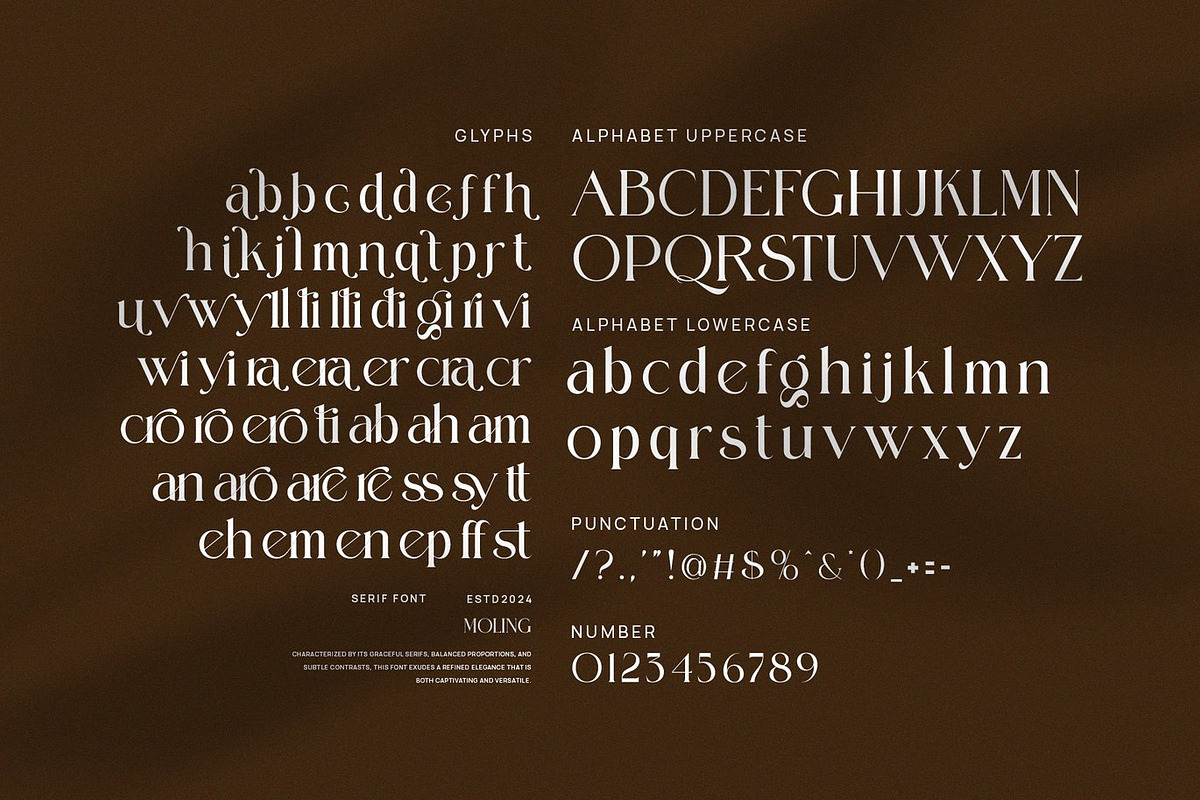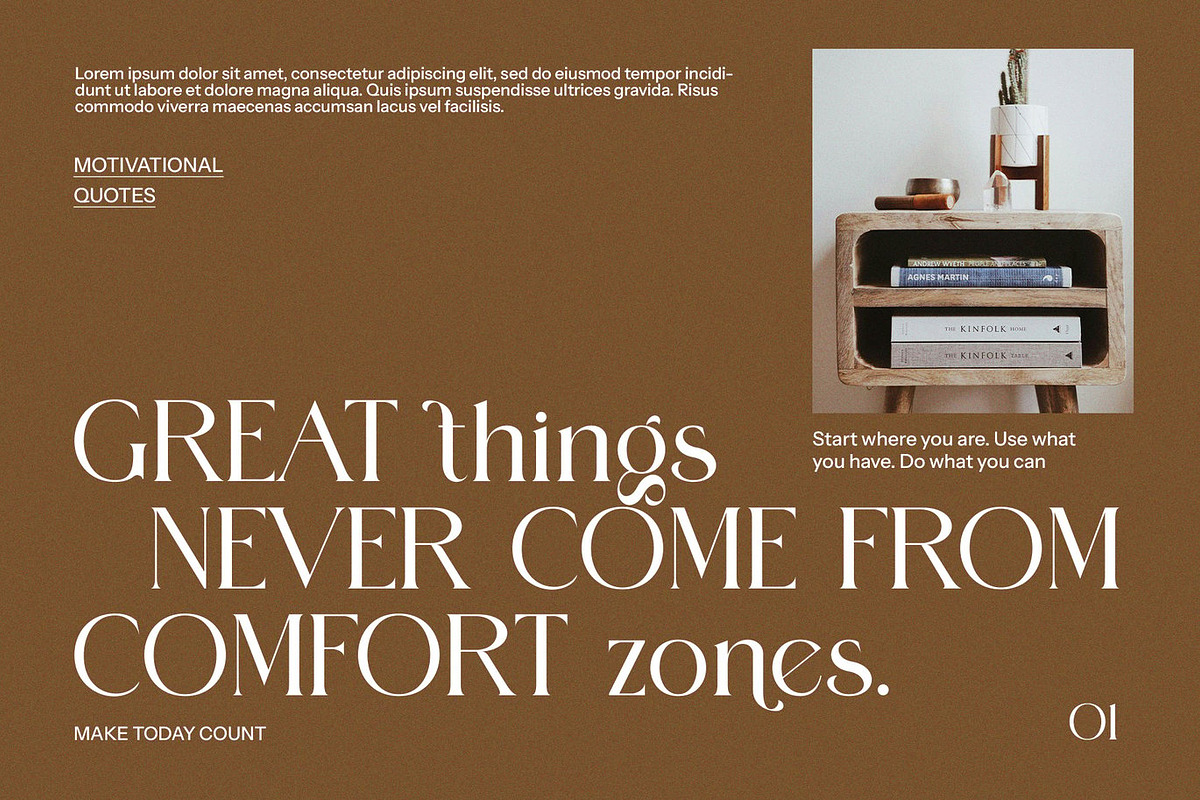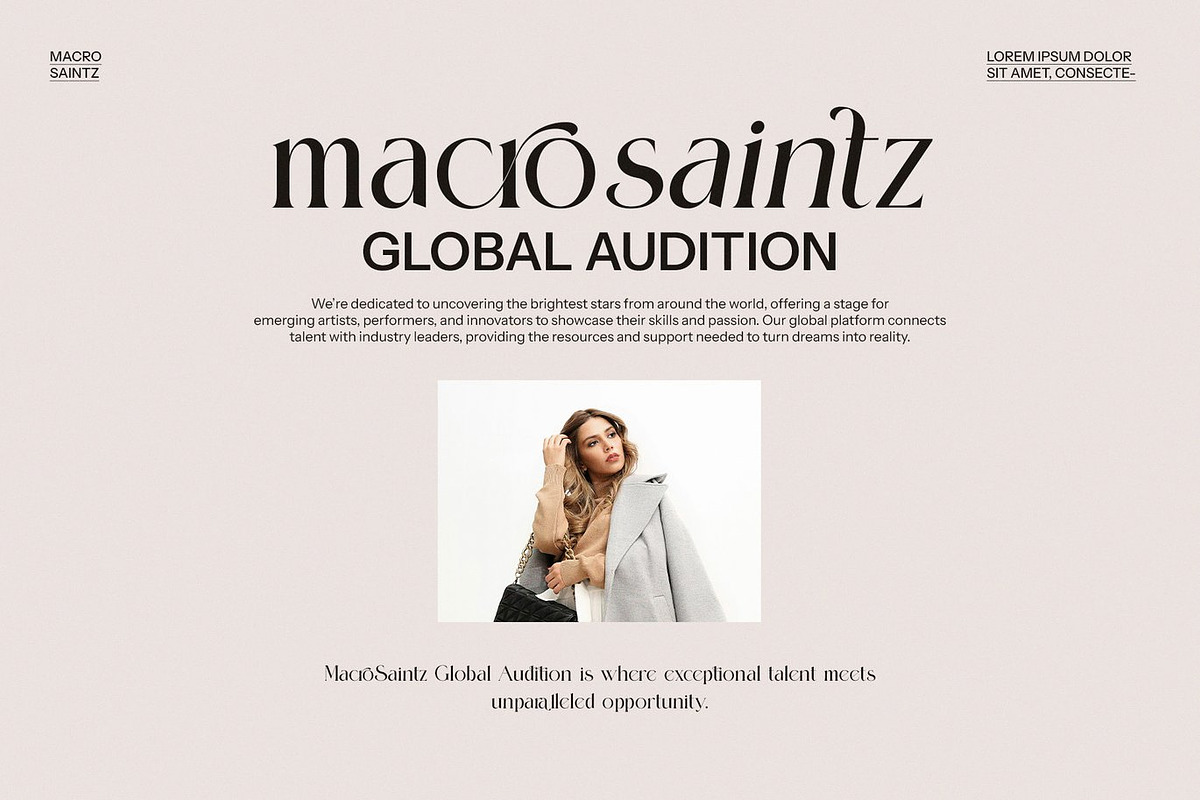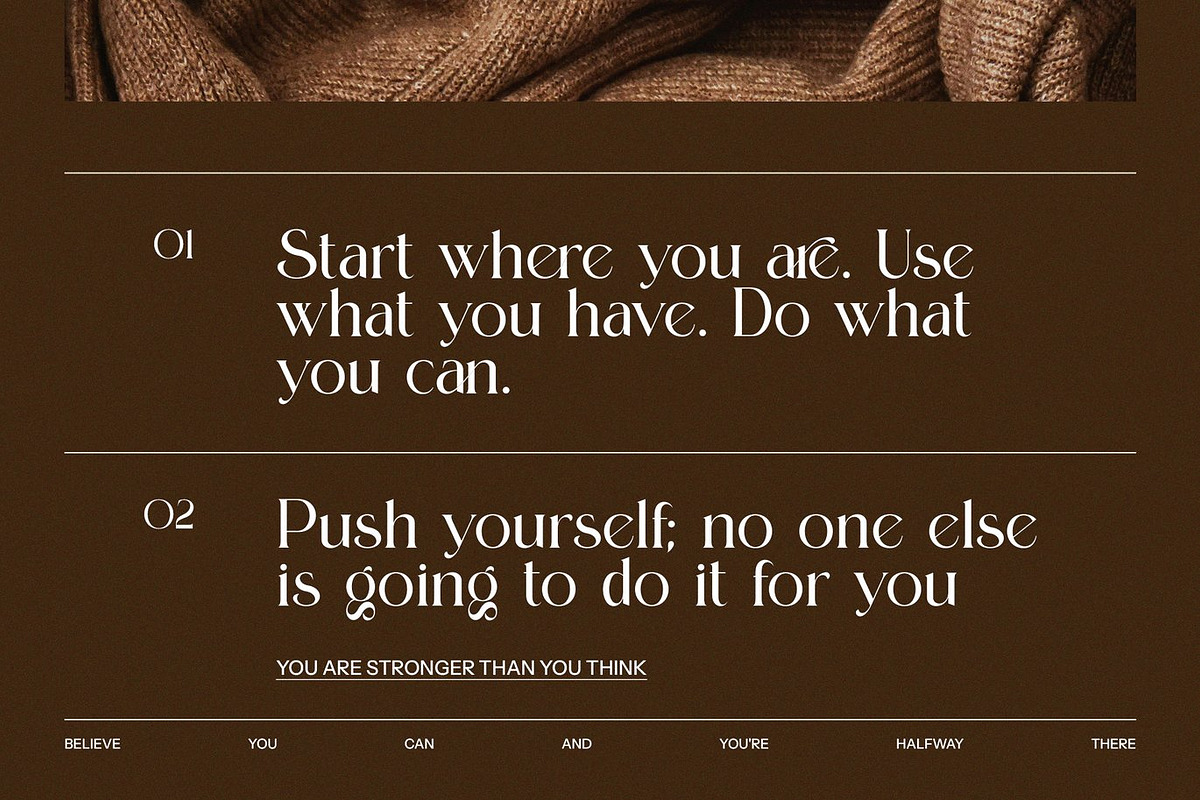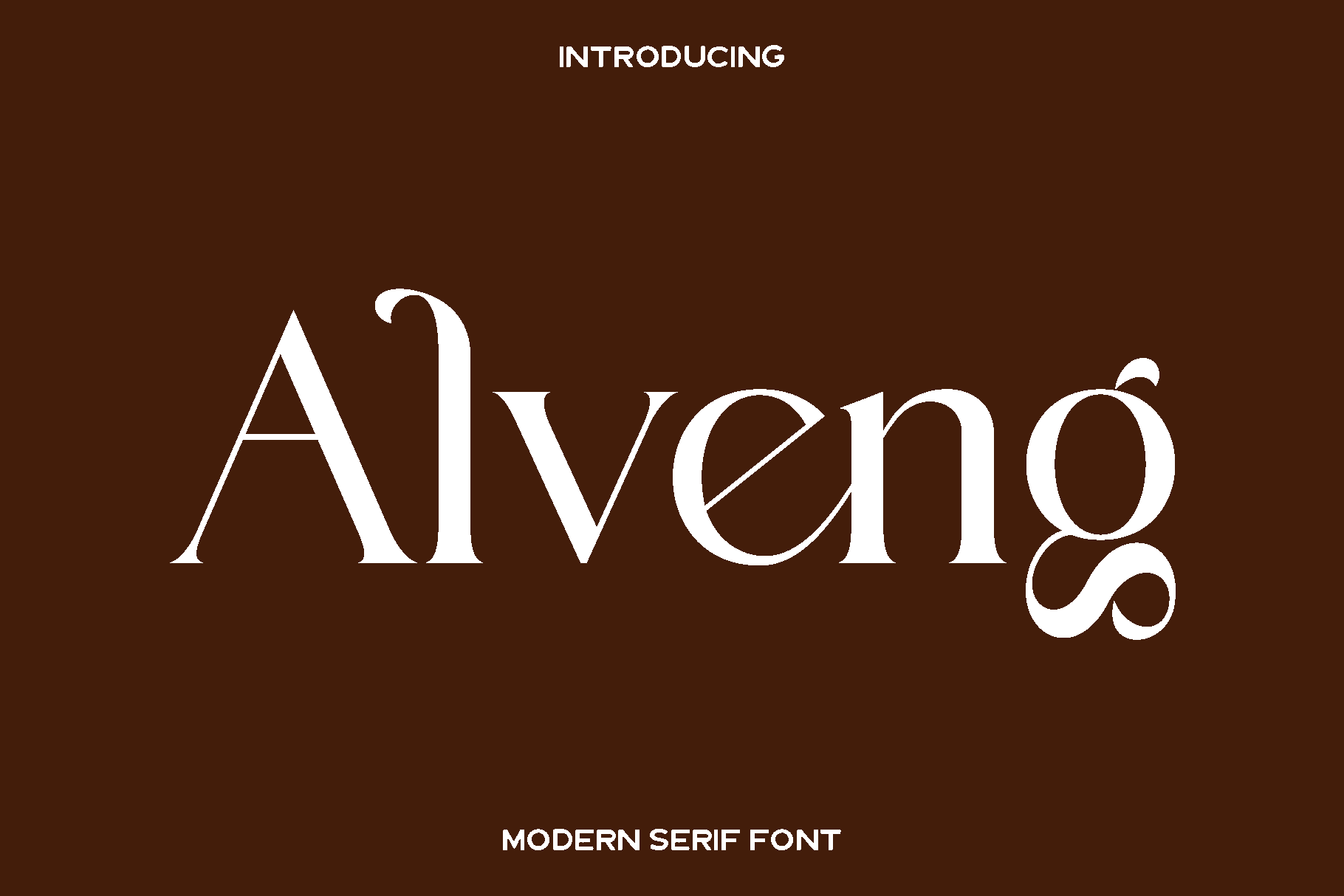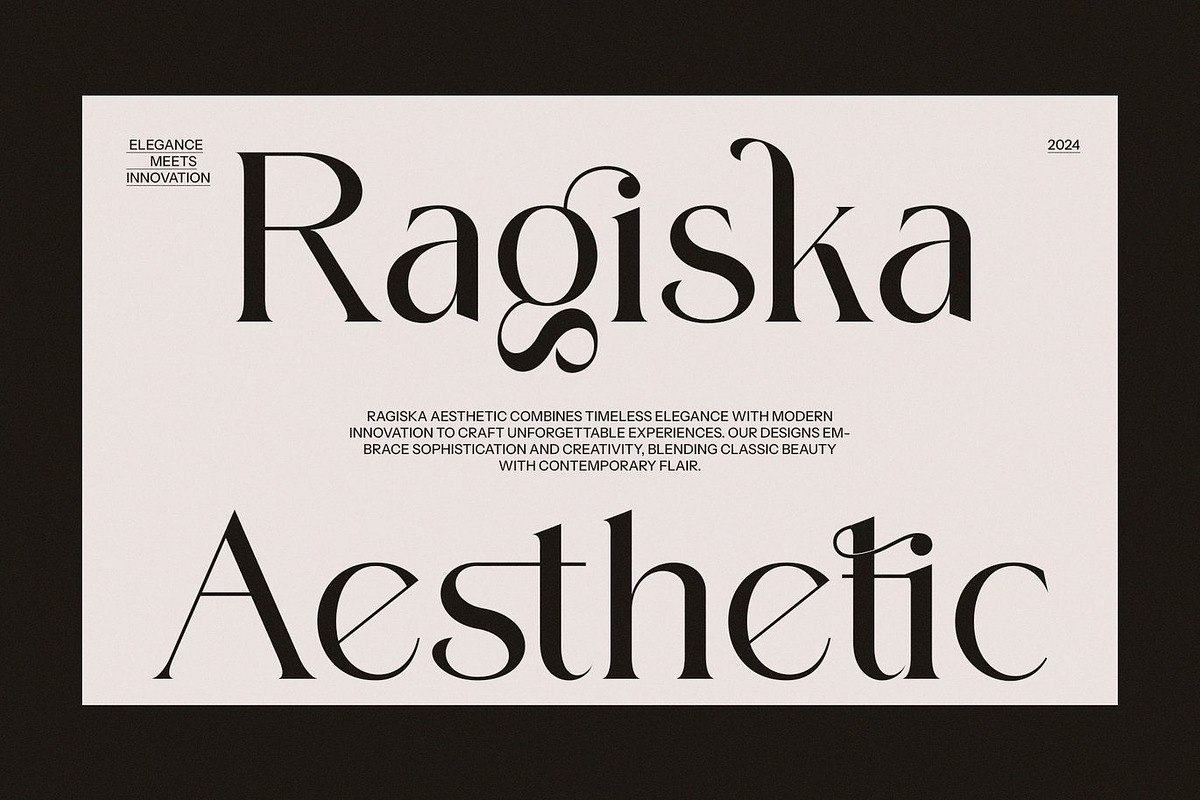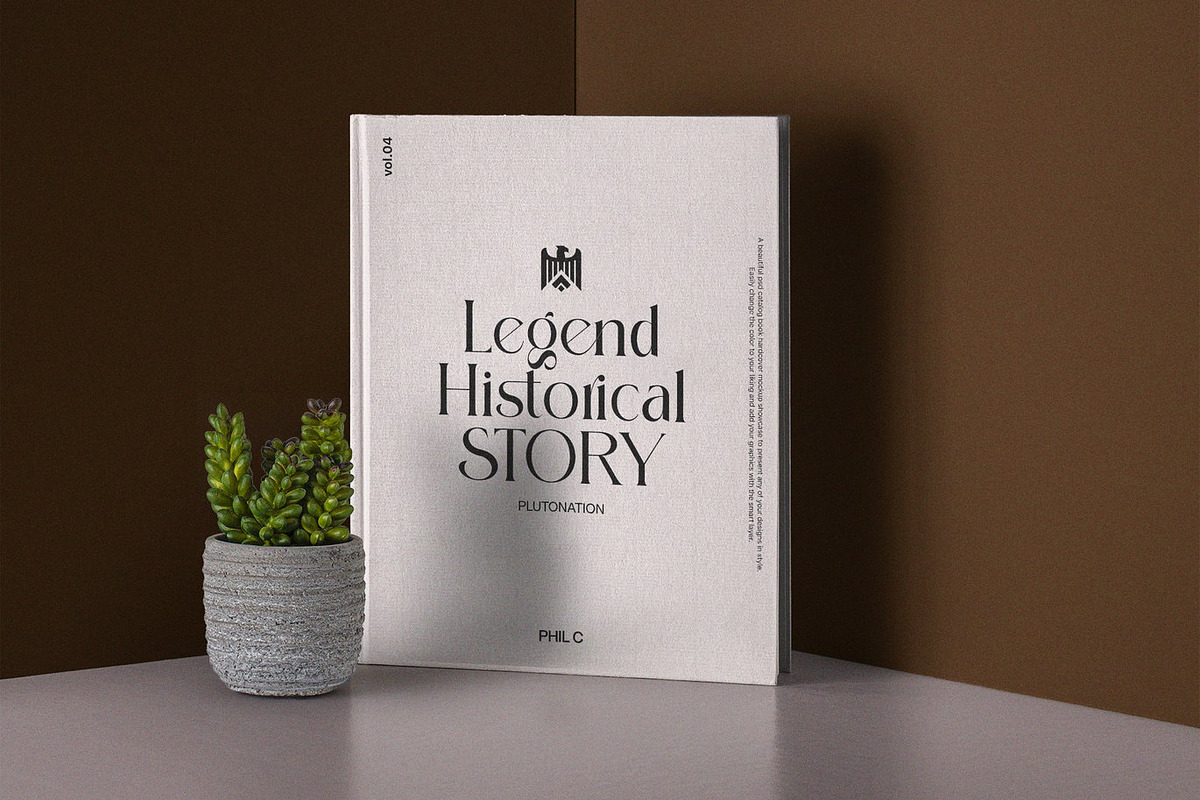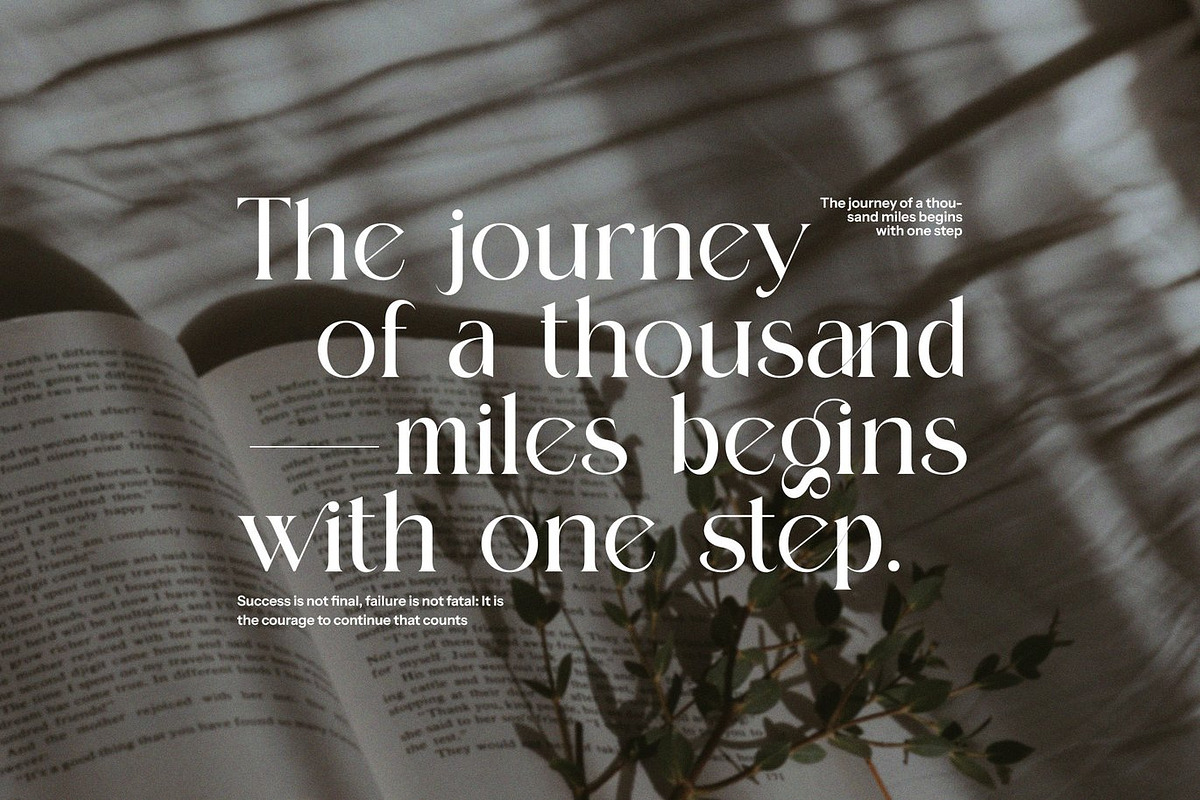
Alveng - Modern Serif Font
Alveng is a refined modern serif font created for designers who appreciate the harmony between classic elegance and contemporary style. Inspired by timeless typography and elevated with clean, modern detailing, Alveng features smooth curves and sharp, confident serifs that bring sophistication to any visual project. Its balanced structure gives it a polished and inviting feel, making it ideal for creators who want their designs to look stylish, professional, and enduring.
This font shines across a wide range of applications, including luxury branding, magazine layouts, fashion identities, wedding invitations, logos, and website design. Alveng maintains exceptional readability at both large and small sizes, allowing it to perform beautifully in headlines as well as body text. Its thoughtful proportions create a calm, sophisticated rhythm that enhances the viewer’s reading experience while maintaining a strong visual presence.
Alveng carries a graceful character that feels both modern and classic. This versatility makes it an excellent choice for editorial projects, premium product packaging, and elegant advertisements. Designers can also pair Alveng effortlessly with sans serif fonts, enabling a balanced and stylish typographic system for any layout. Its timeless appeal ensures that your creative work remains relevant and visually engaging across all mediums.
Alveng Features:
• Modern serif style with classic elegance
• Smooth curves and sharp serif detailing
• Readable letterforms suitable for titles and body text
• Versatile for print, digital design, and branding
• Ideal for luxury, fashion, editorial, and elegant projects
• Pairs beautifully with sans serif fonts
• Balanced and inviting visual style
• Standard characters
• Numbers and punctuation
• Accented characters for Western European languages